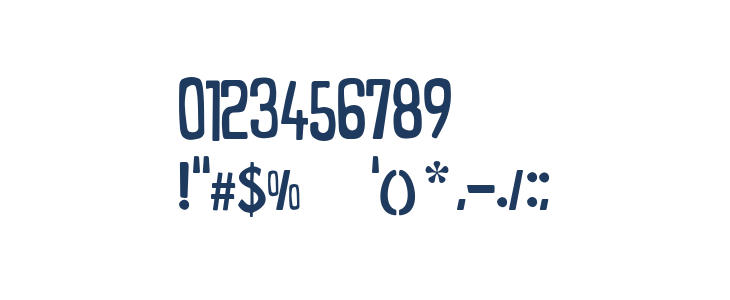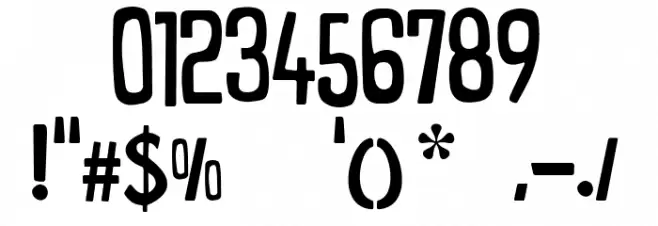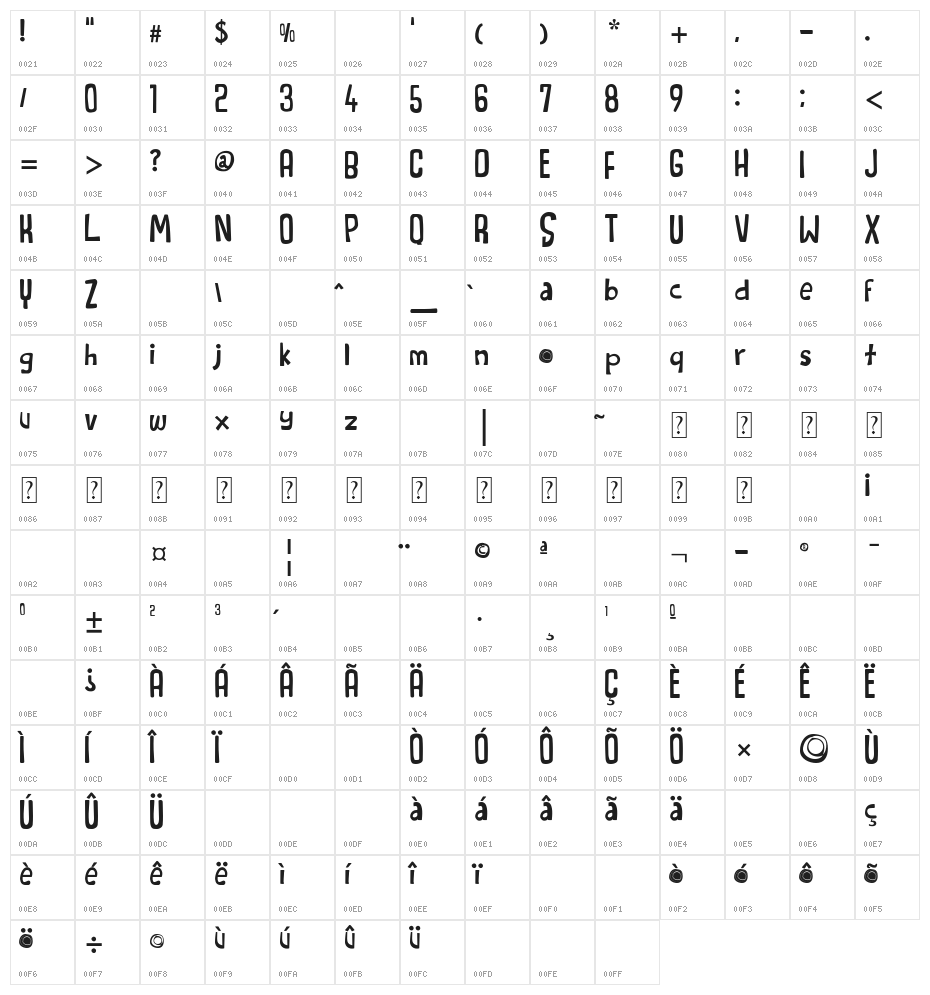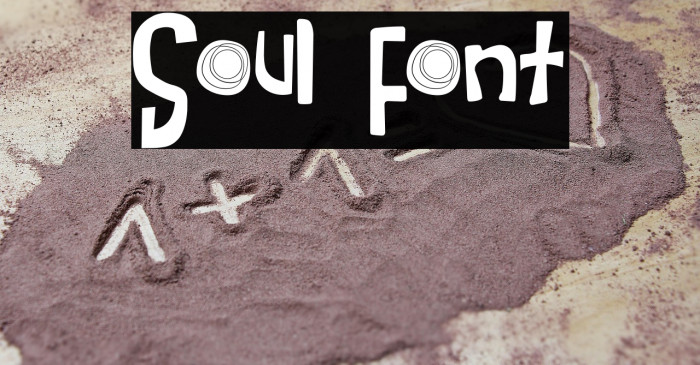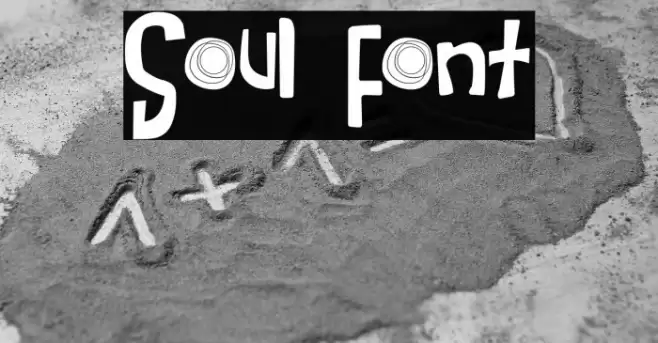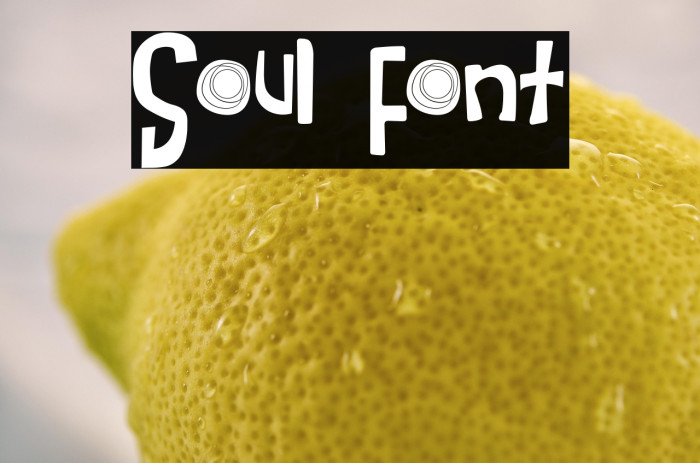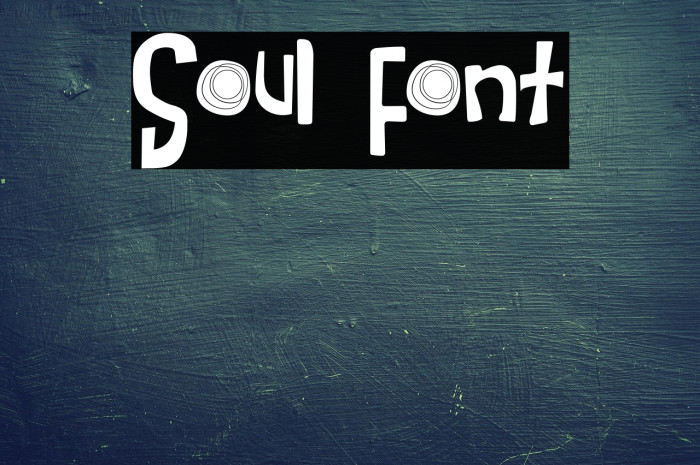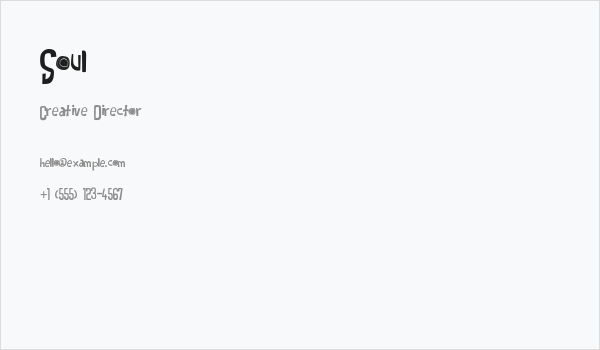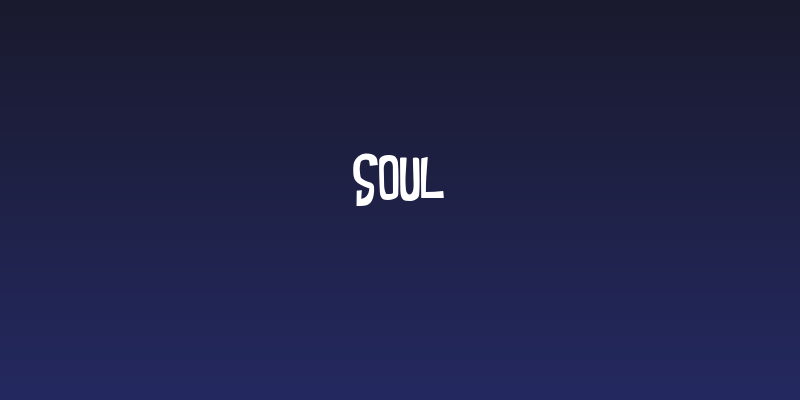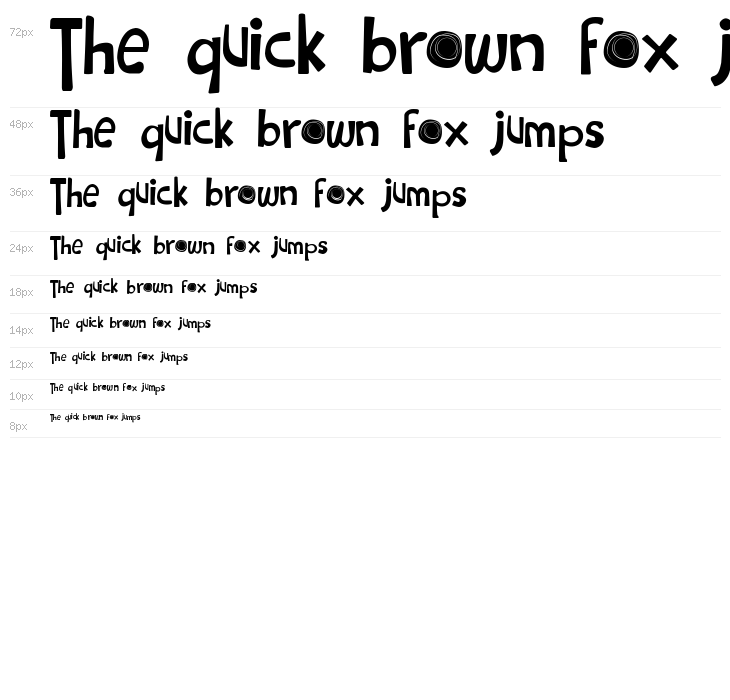
Soul Font
Soul Description
This font features a playful and quirky design with a hand-drawn aesthetic. The letters are bold and slightly irregular, giving them a whimsical and informal feel. The uppercase characters are tall and narrow, while the lowercase letters maintain a consistent height, adding to the casual vibe. The numbers are similarly styled, with a rounded and approachable appearance. Special characters are creatively integrated, with unique twists that enhance the font's overall charm. This font is perfect for projects that require a fun and engaging look, such as children's books, playful branding, or creative posters.
| Proposed Projects | Ideal for children's books, playful branding, creative posters, and casual invitations. |